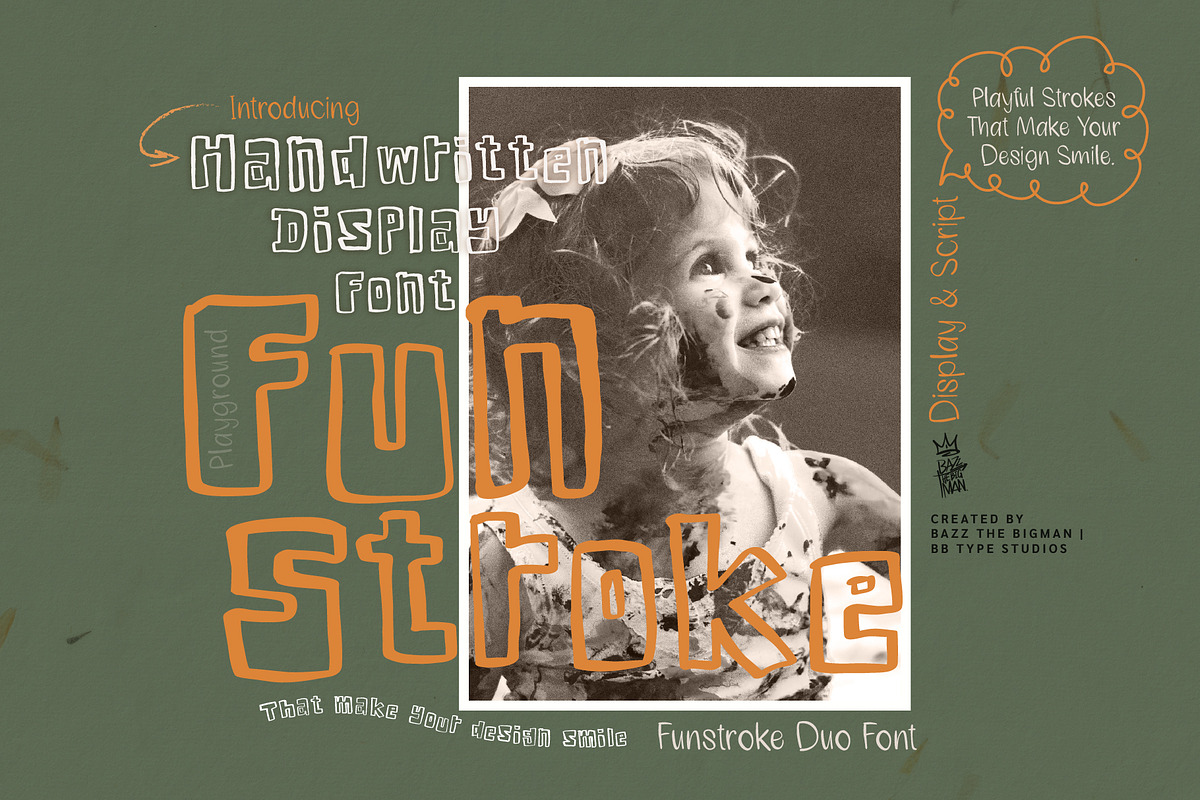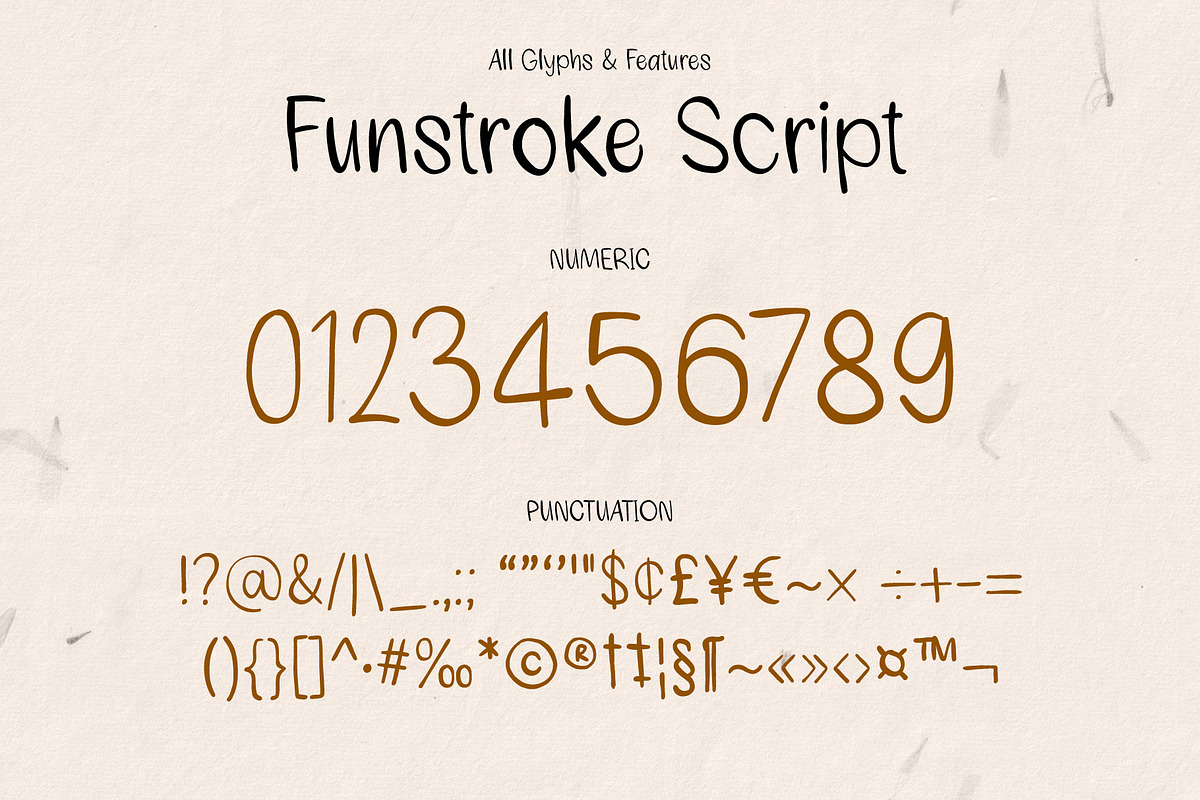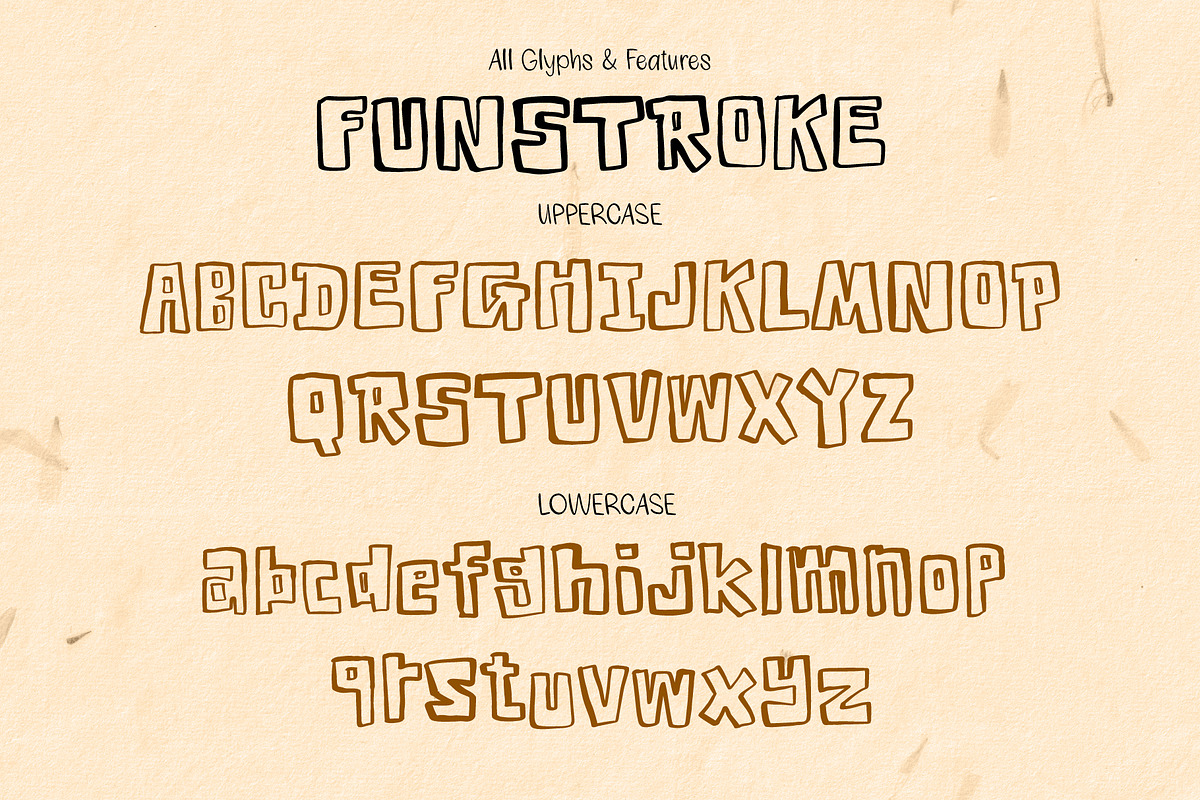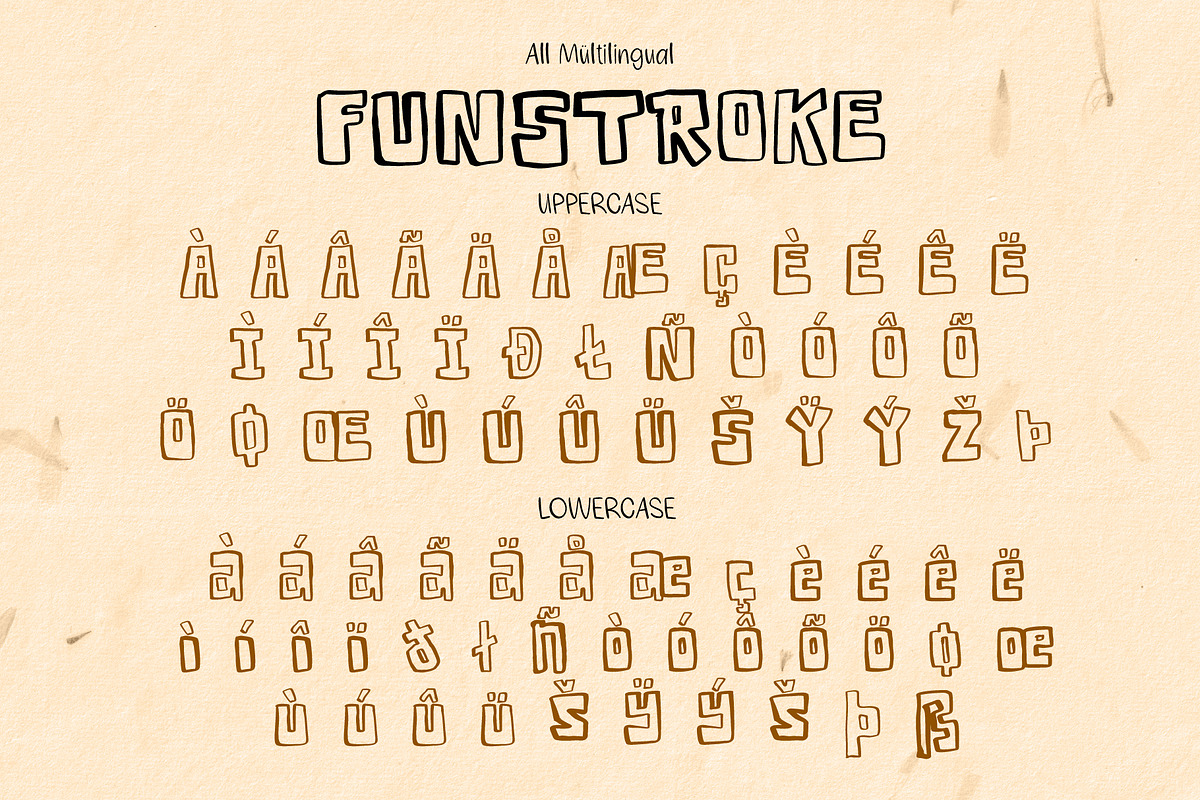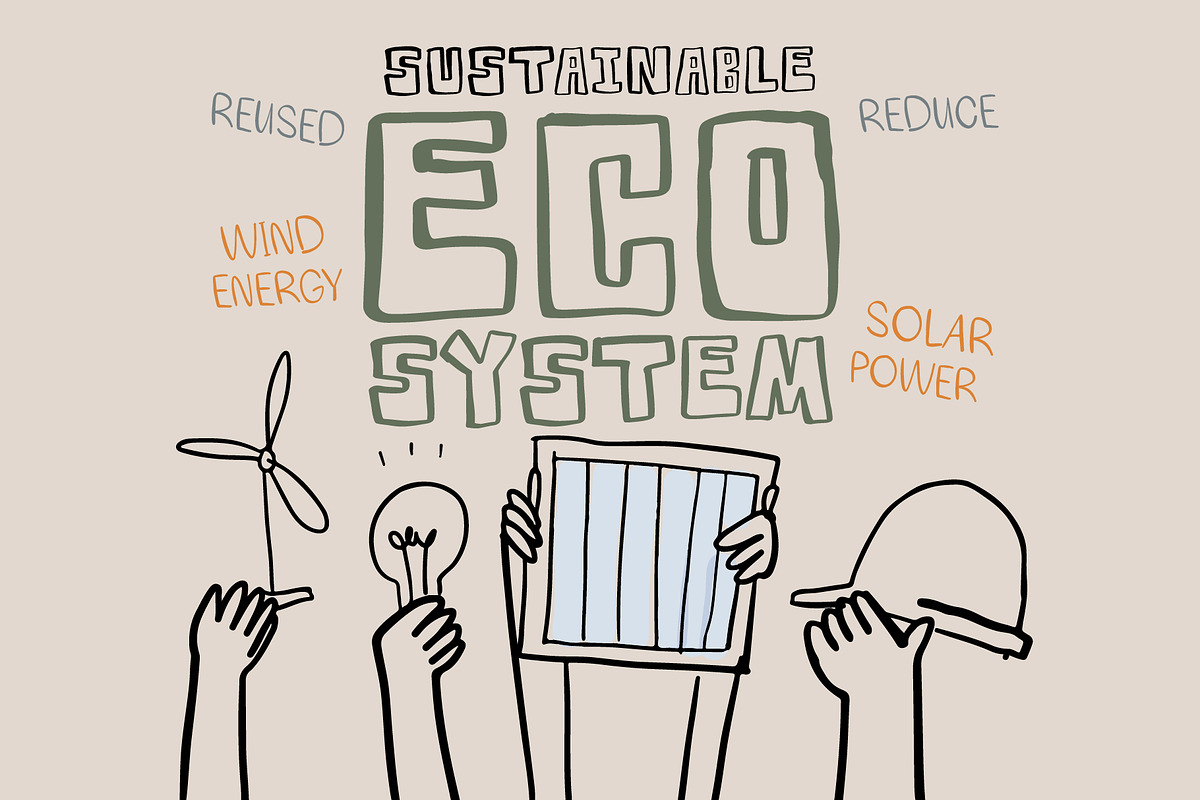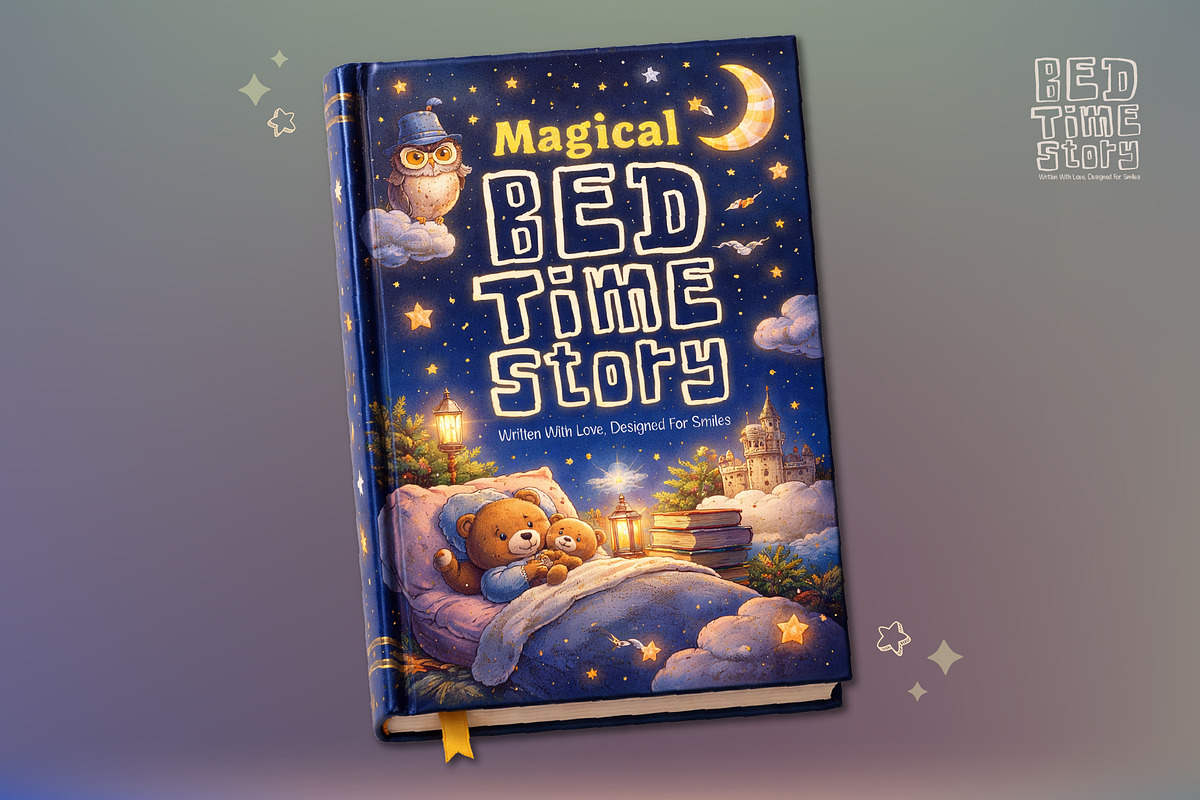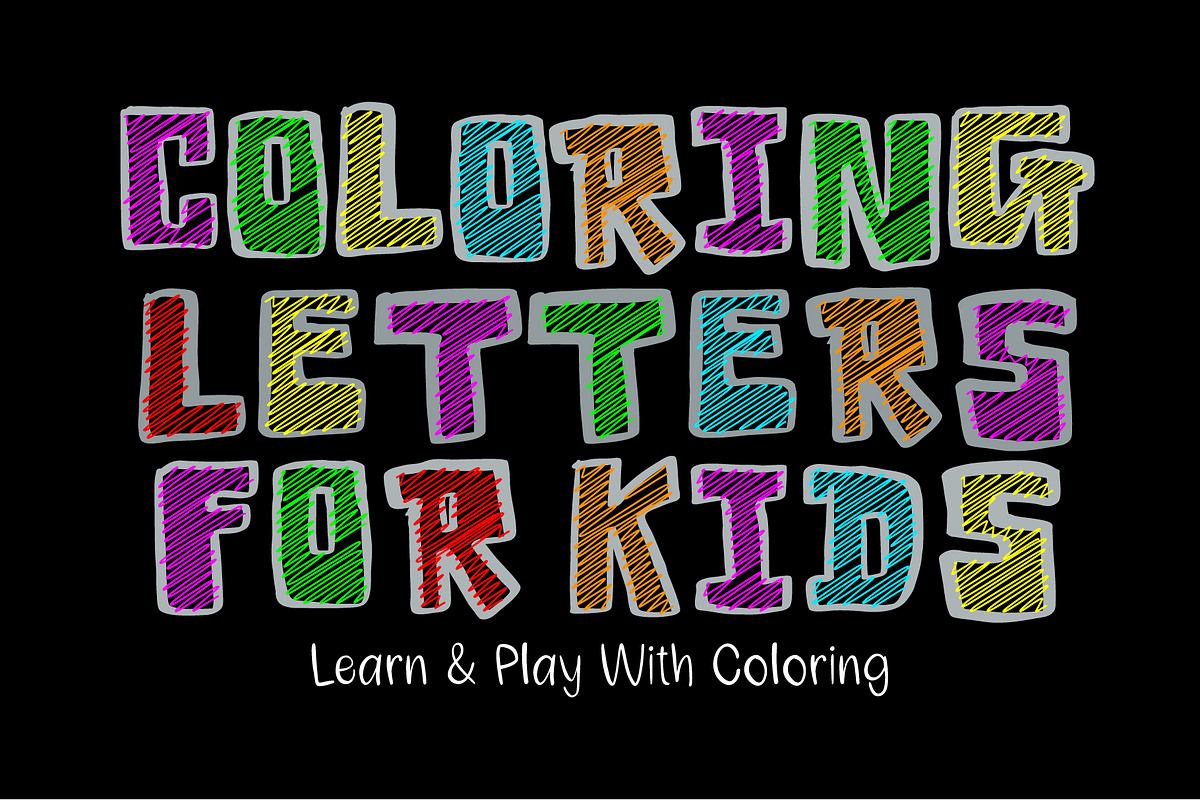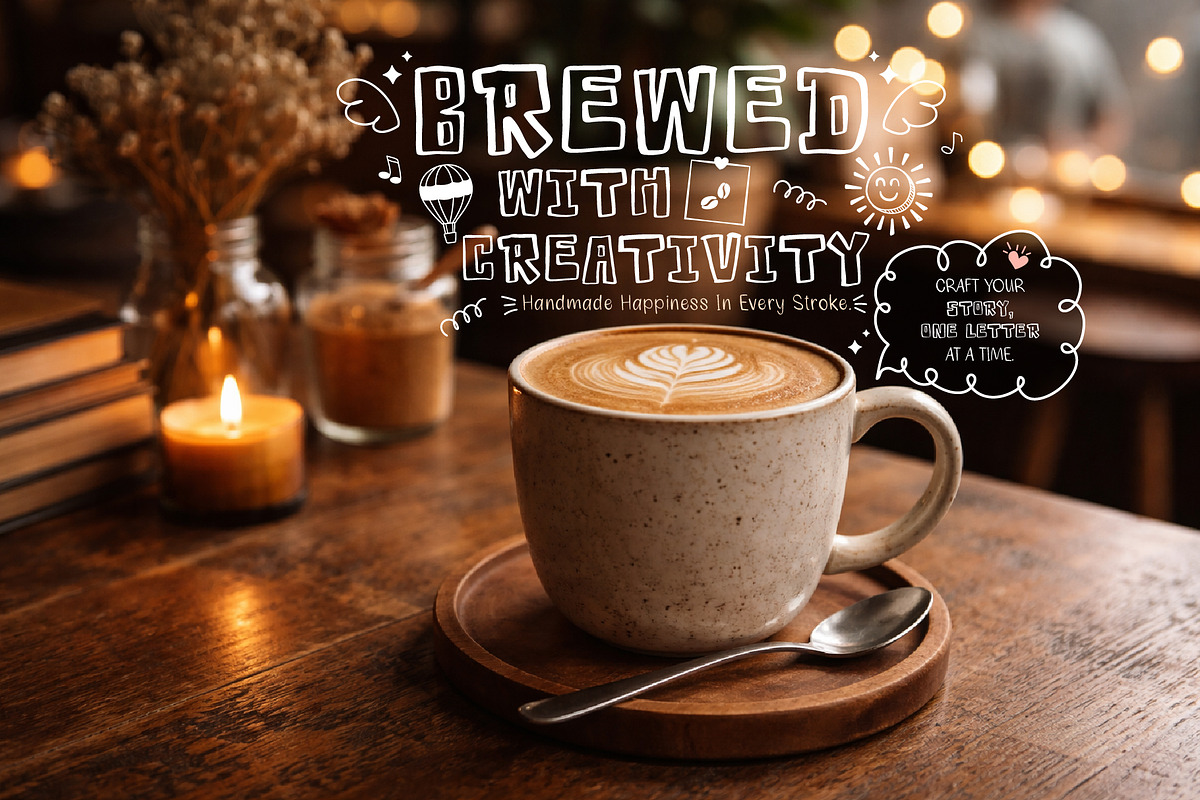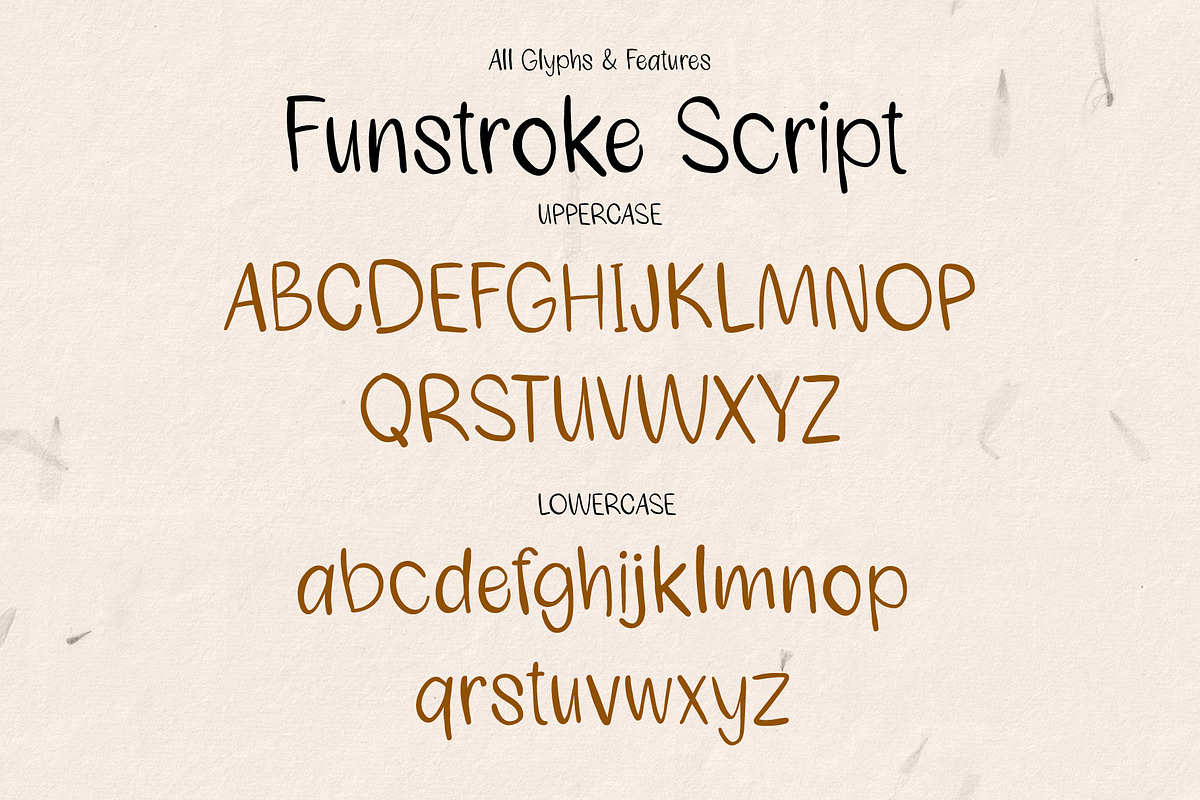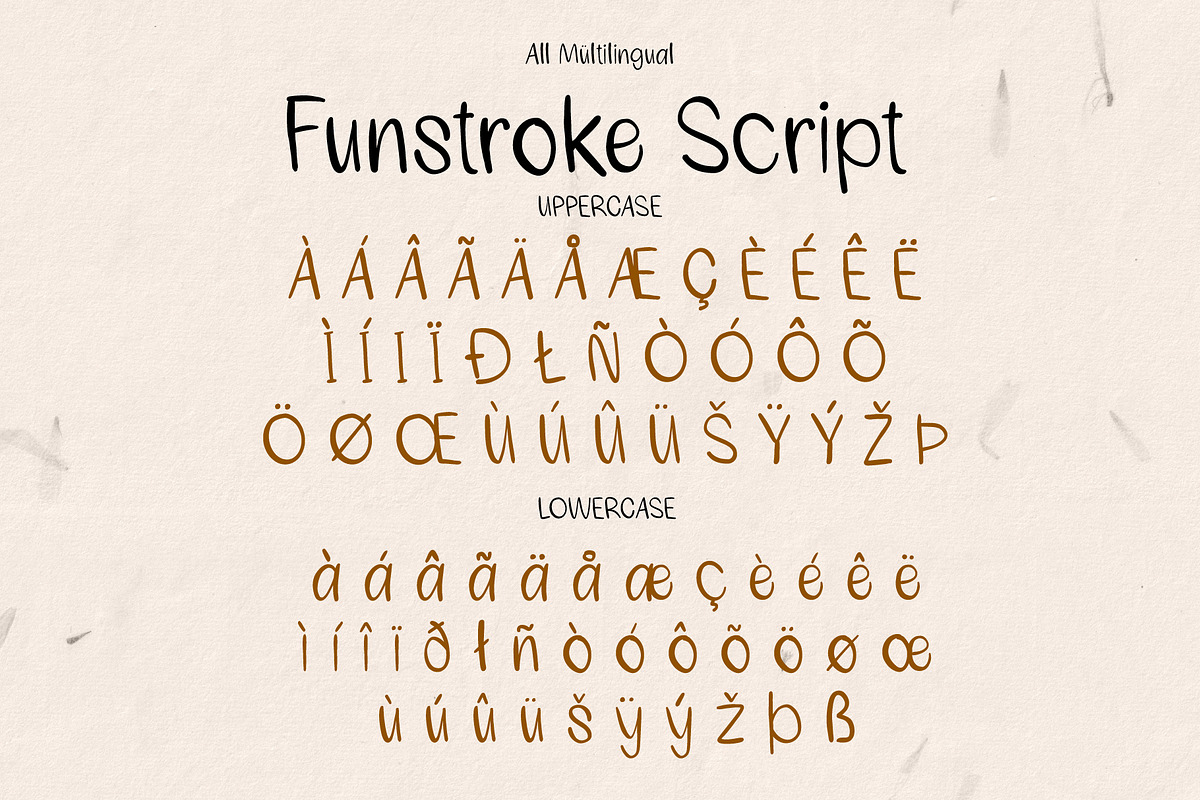
Funstroke
Funstroke Duo Font is a playful handwritten display and script font combination designed to bring joy, personality, and creativity into your designs.
With its bold sketch-style strokes and friendly handwritten feel, Funstroke is perfect for creating eye-catching titles, fun branding, kids projects, and cheerful design work.
This duo includes a unique outline display font paired with a smooth handwritten script, giving you the flexibility to mix and match styles for a more dynamic and expressive look.
Whether you're designing for children, social media, packaging, or creative projects, Funstroke adds a fun and lively touch that makes your design stand out.
- Kids design & educational projects
- Posters & social media graphics
- Stickers & DIY crafts
- Branding & packaging
- Quotes & typography artwork
- Book covers & playful layouts
- Uppercase & Lowercase letters